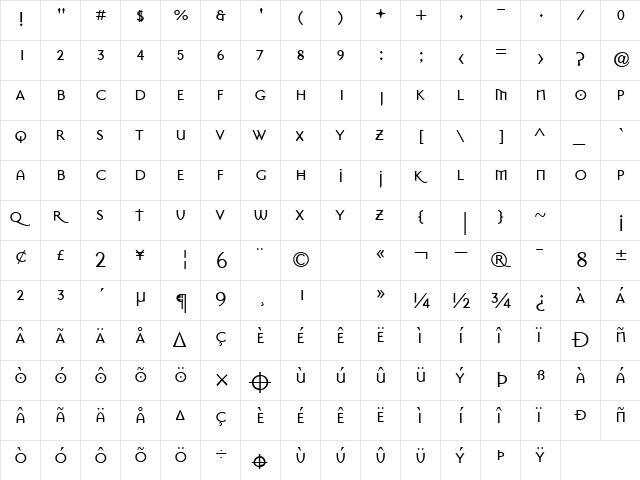
MasonSansSuper Regular
Design Context for MasonSansSuper Typeface
MasonSansSuper is a composed and adaptable typeface that performs quietly and consistently across a wide range of design contexts.